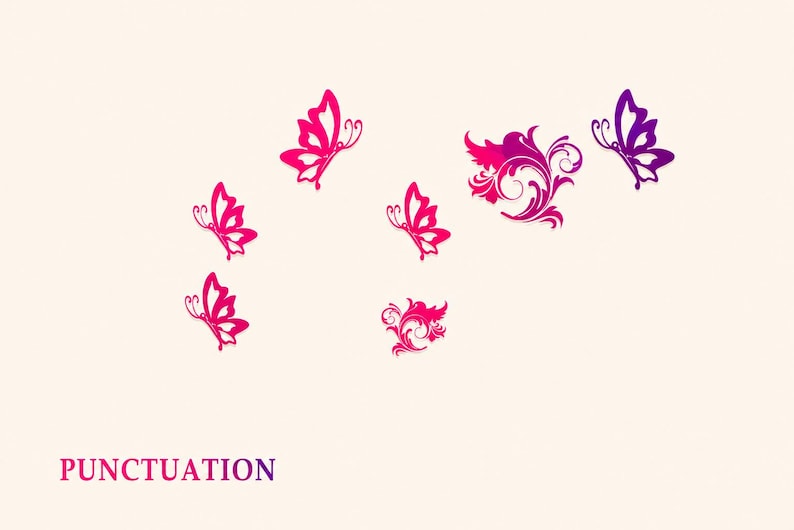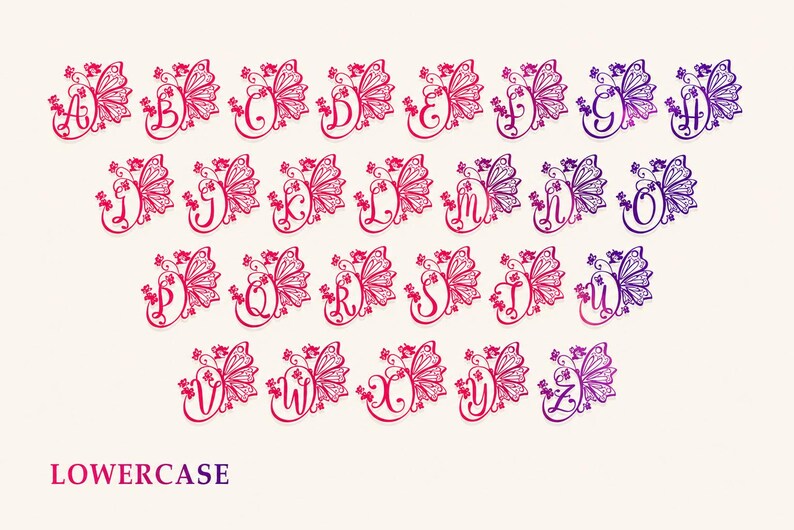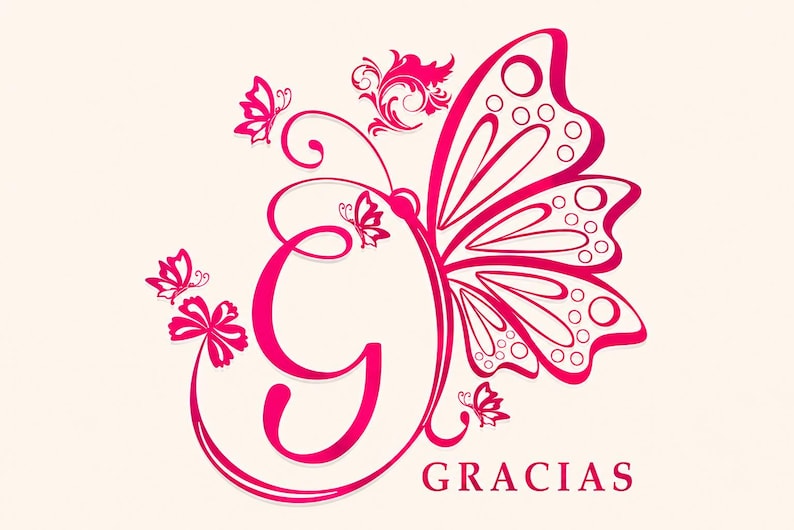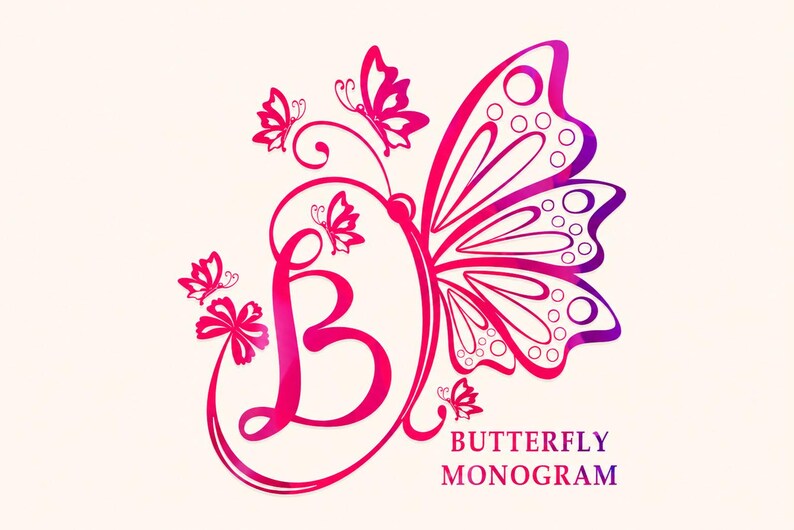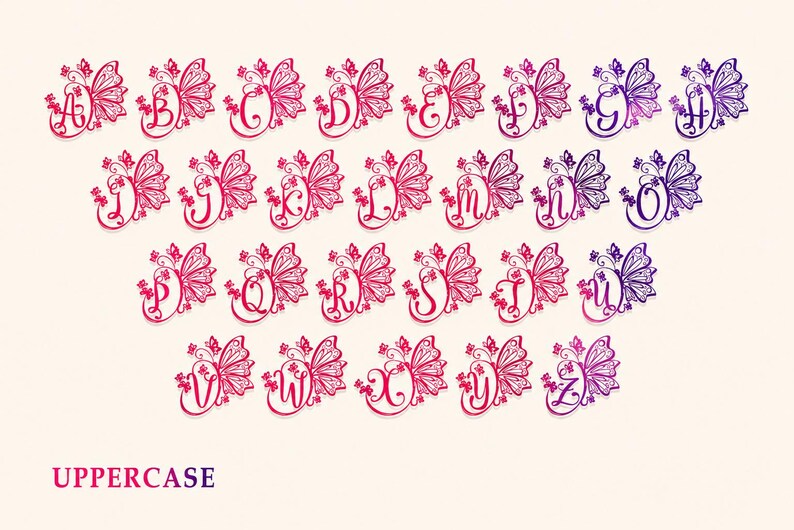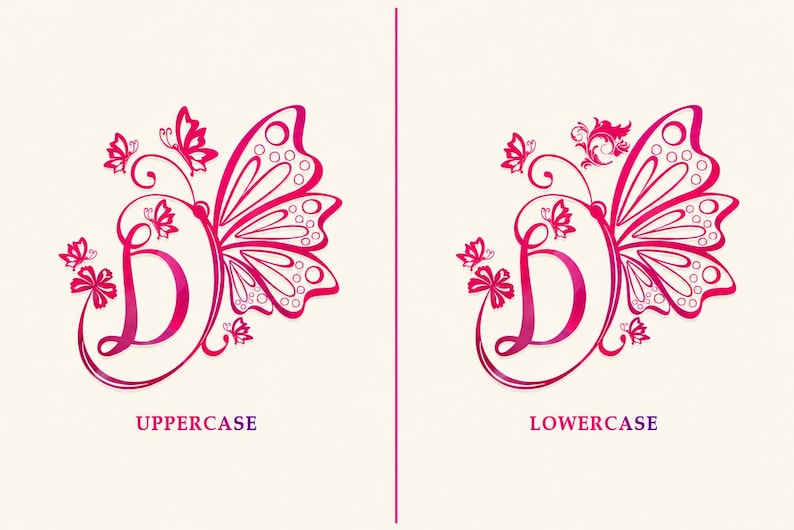
Butterfly Monogram Font, Elegant Script Calligraphy, Floral Initials, Wedding Invitation Font, Logo Branding, Cricut Canva, Feminine Designs
Butterfly Monogram is an elegant decorative font featuring beautiful ornaments and charming details. Fall in love with its authentic style and use it to create stunning wedding invitations, beautiful stationery, eye-catching social media posts, and lovely greeting cards.